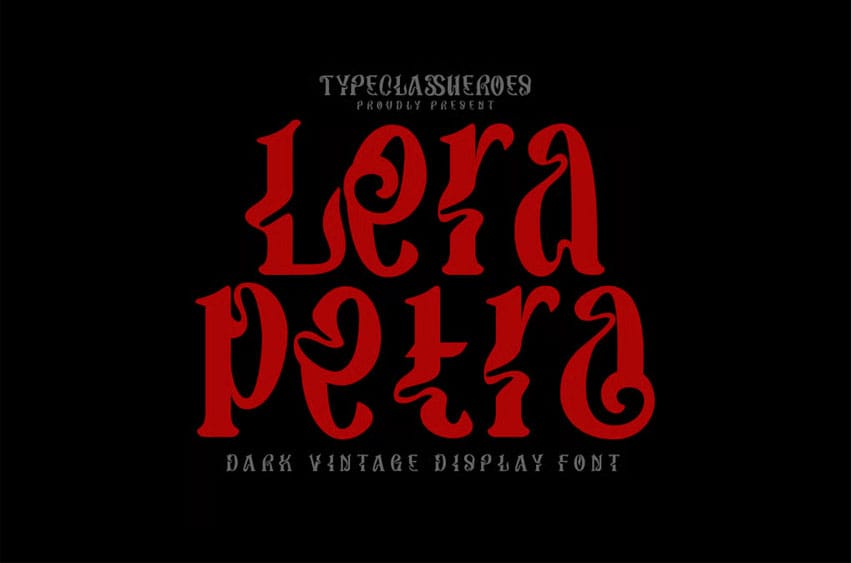
Lerapetra Font is a vintage display typeface. Makes this font multi-purpose for a wide range of applications. The design looks very unique and eye-catching if it’s combined properly. This font is ideal for logos, headlines, and other projects
- Number & Symbol
- International Glyphs
- Alternative